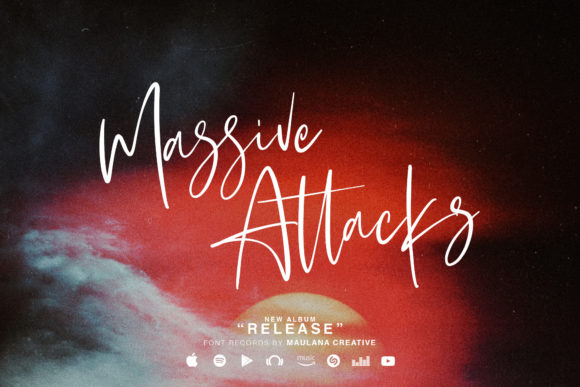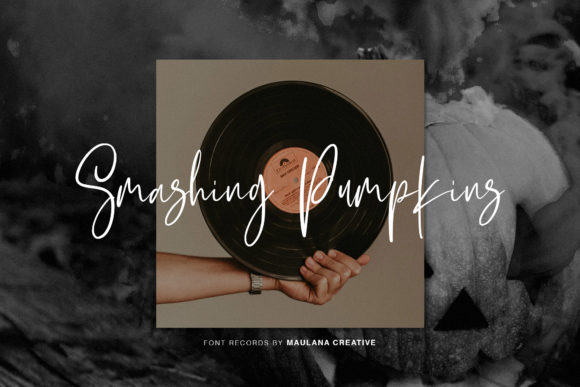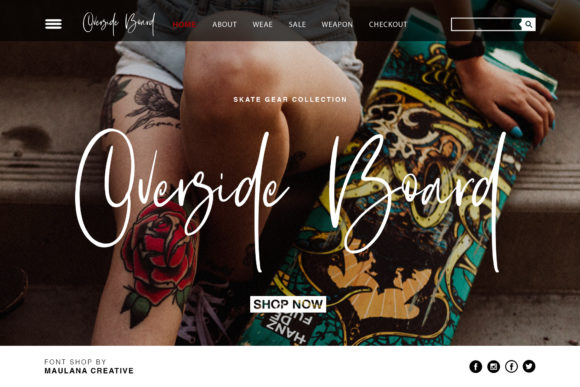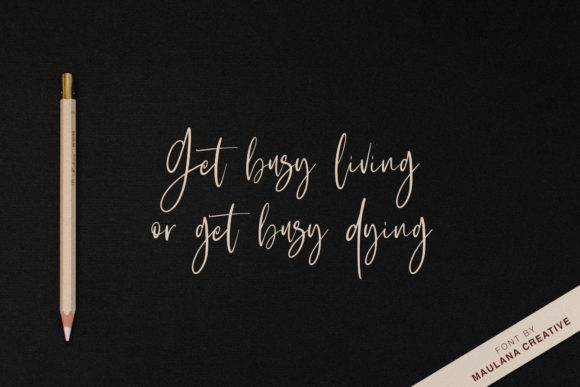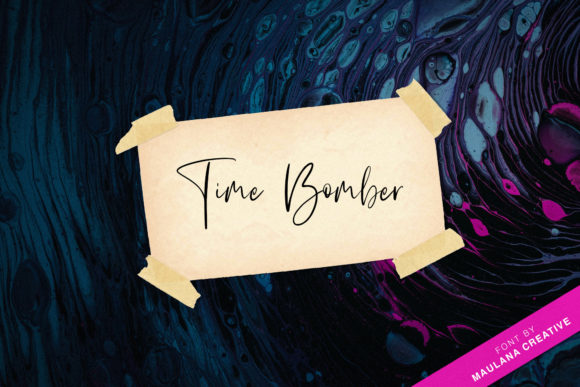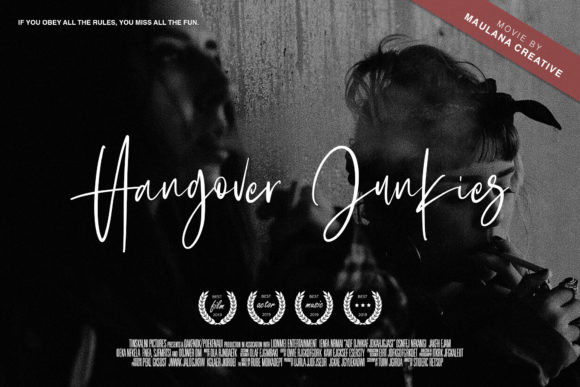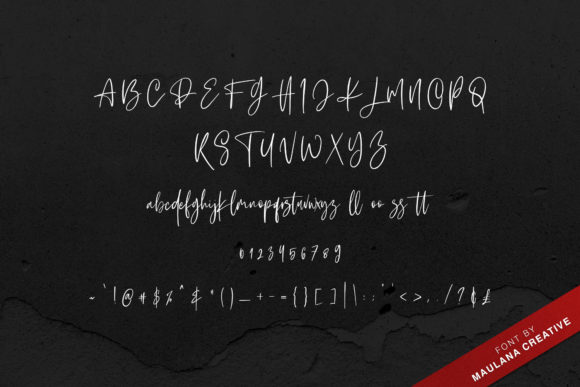
Hardtrack Font
About Hardtrack Font
Hardtrack is the ideal font for giving your projects that authentic, handwritten feel. Get inspired by its contemporary charm!